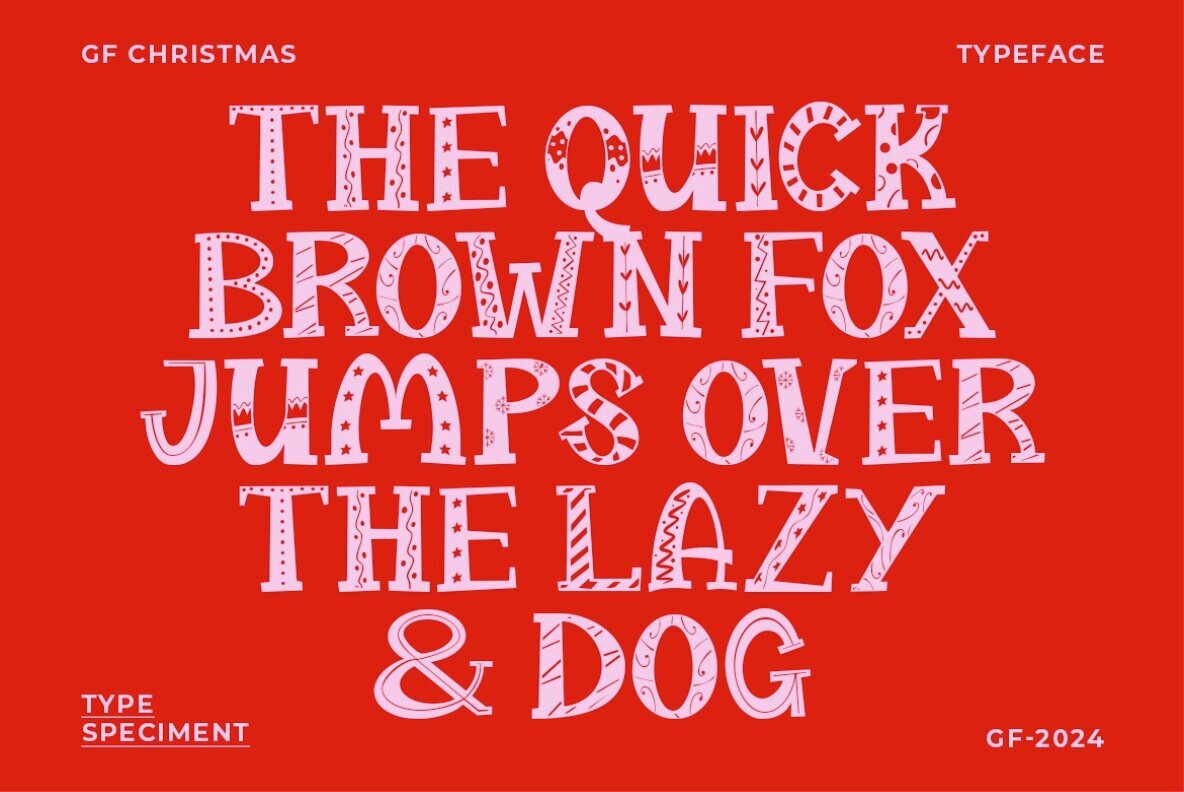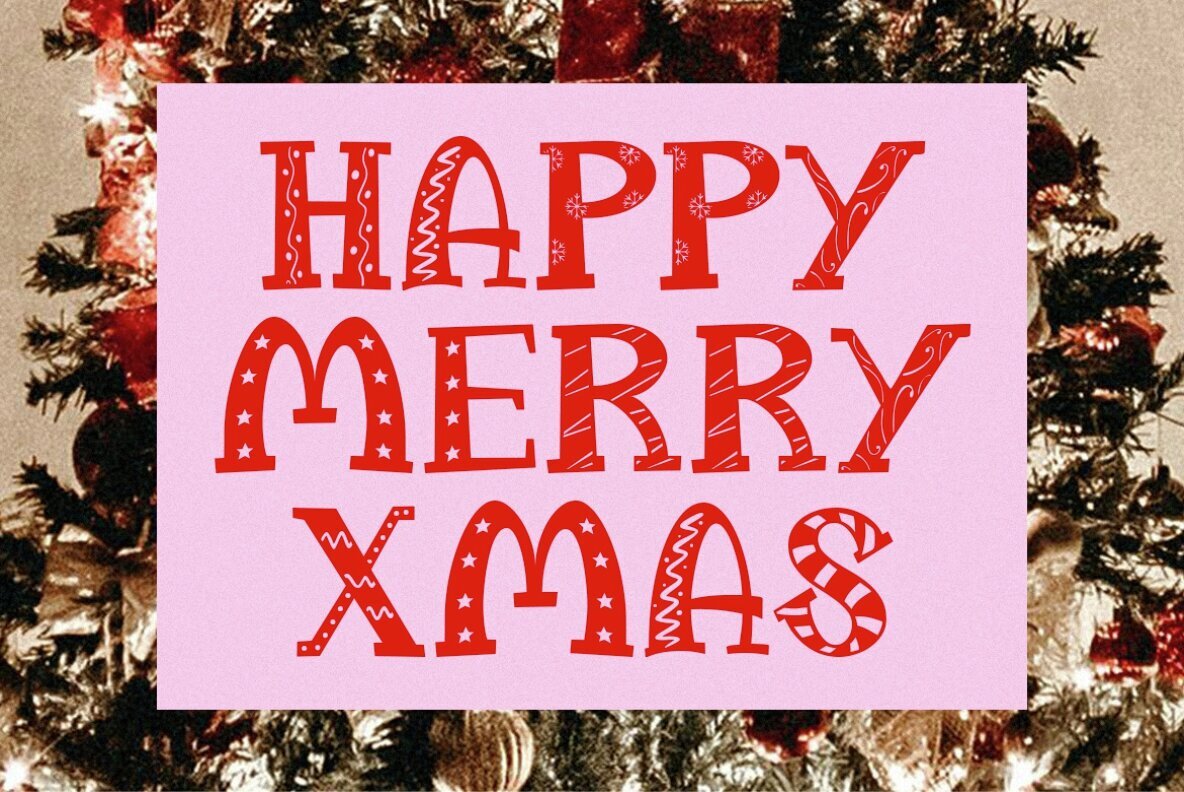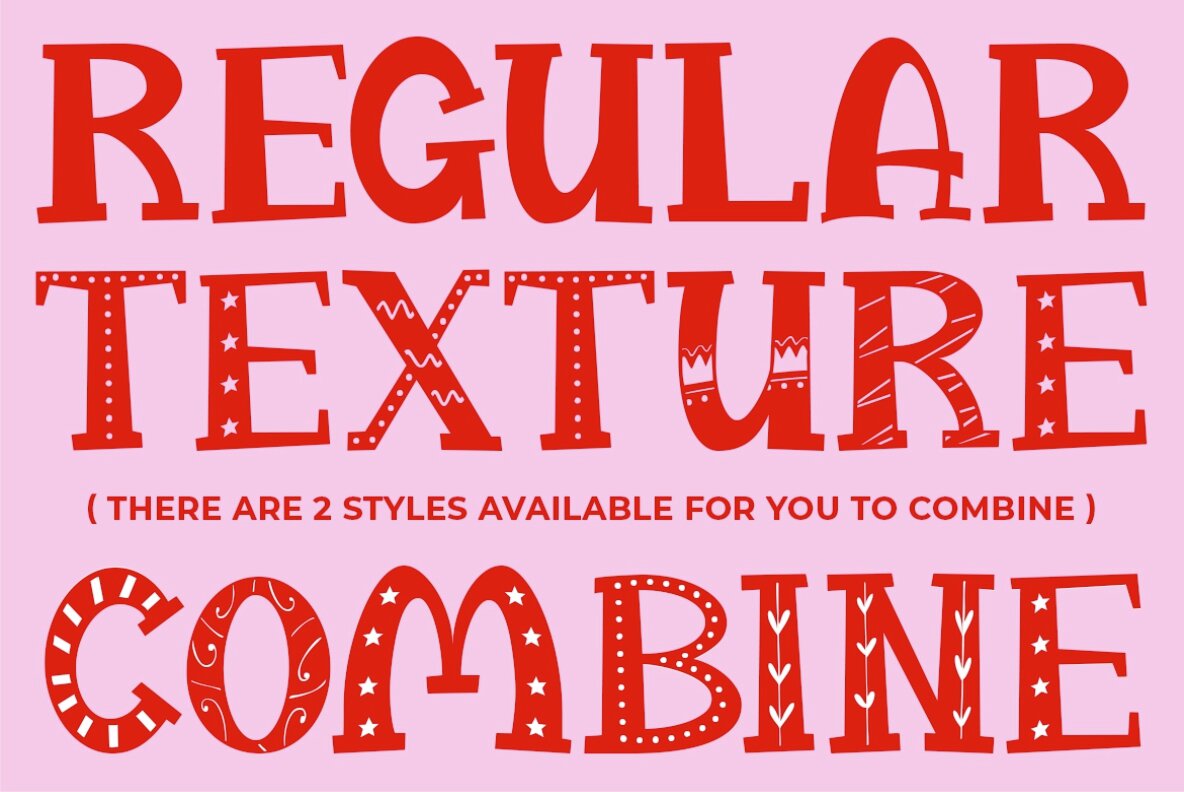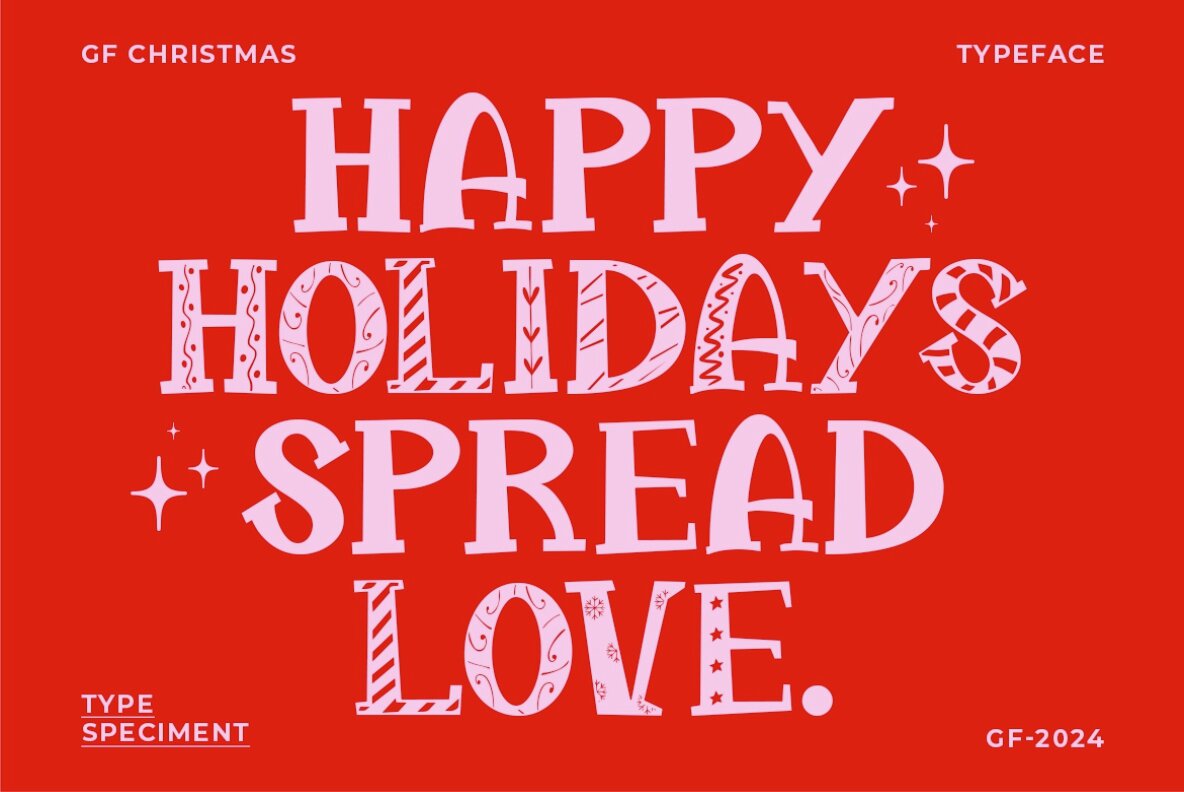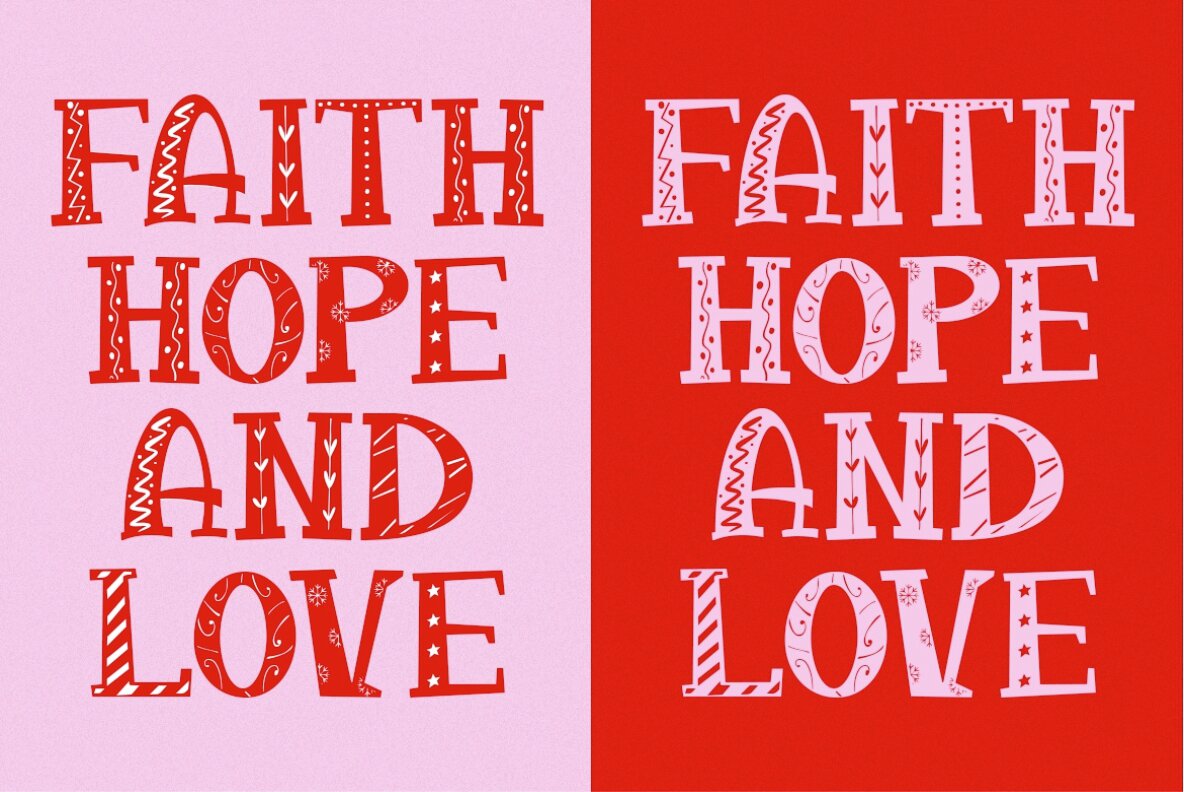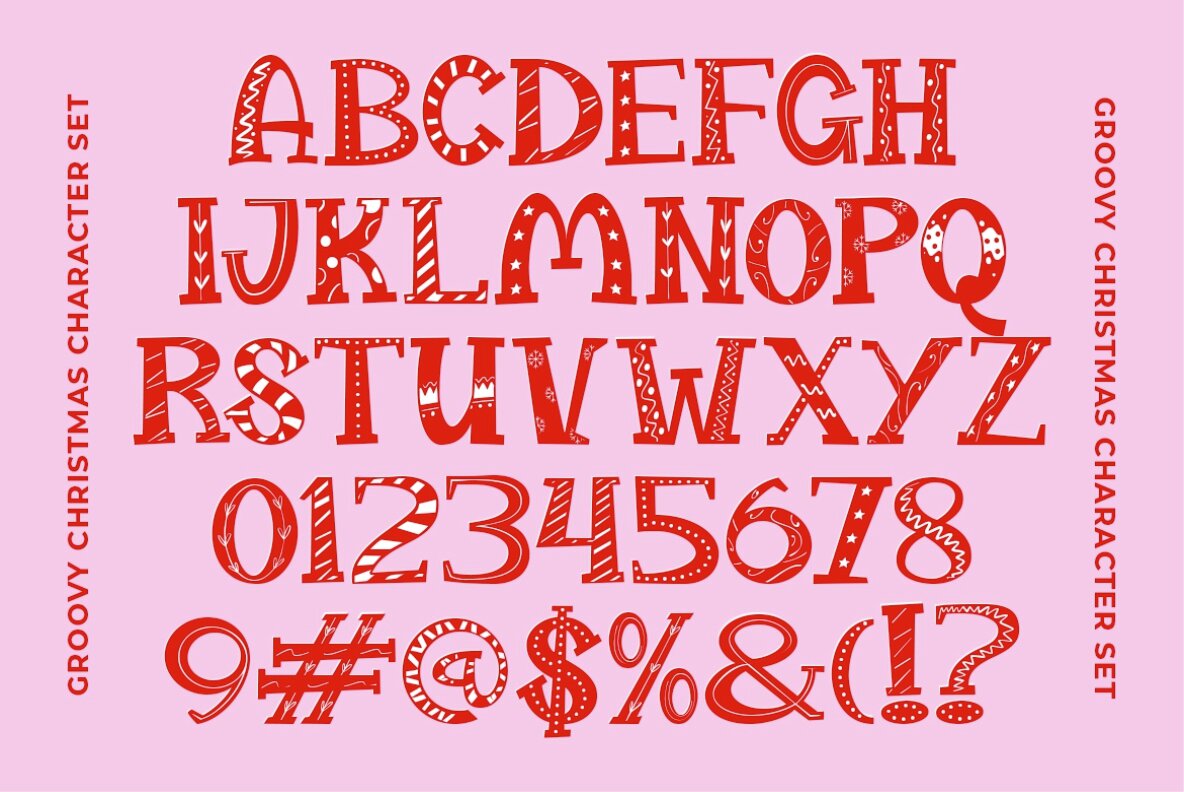
Groovy Christmas Font
Groovy Christmas is a vibrant and cheerful font crafted to infuse your projects with a festive spirit. This playful display serif font is available in two distinct styles: regular and texture. The textured style, adorned with intricate designs inspired by Christmas motifs, offers a unique and creative touch ideal for holiday-themed projects.
Enhance your typography with the joyful and whimsical essence of the holiday season using Groovy Christmas. Whether you're designing greeting cards, festive invitations, or holiday marketing materials, this font brings a delightful charm that captures the spirit of Christmas.